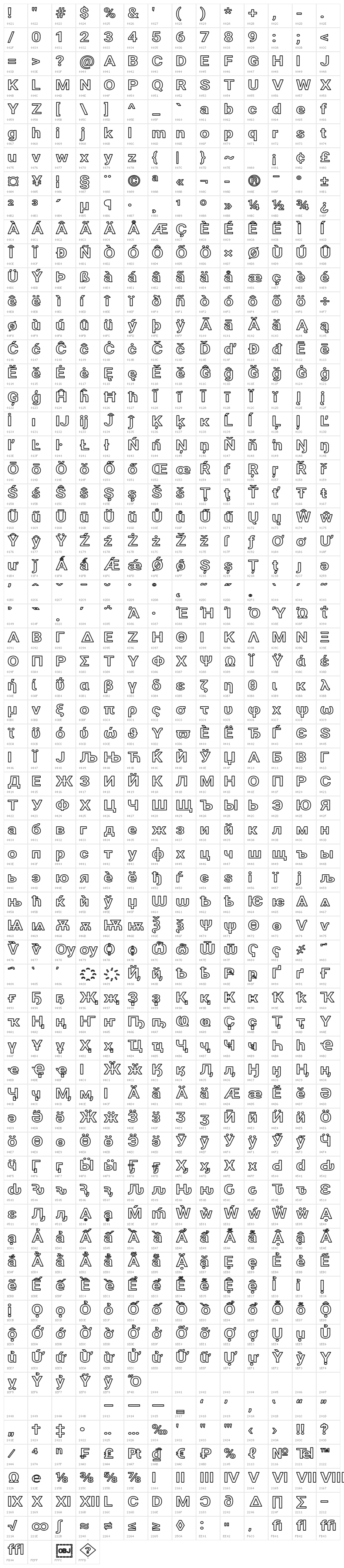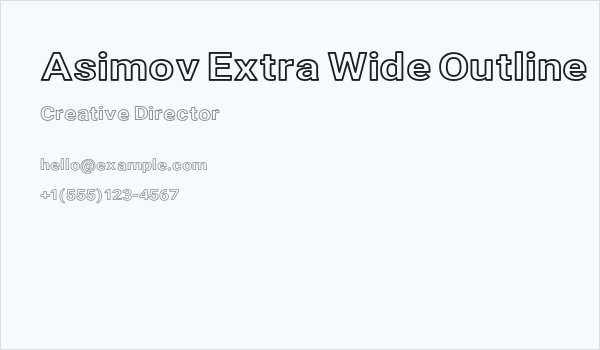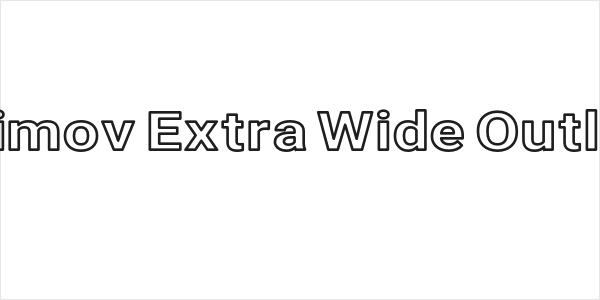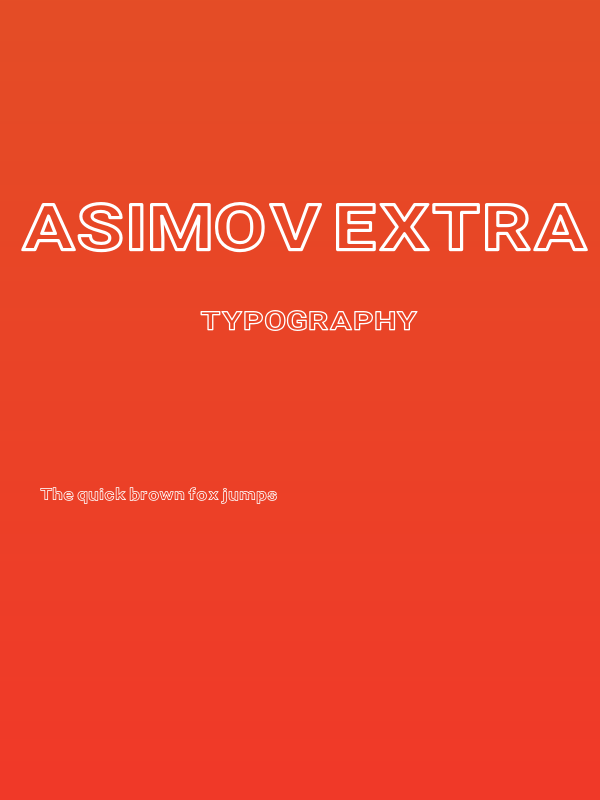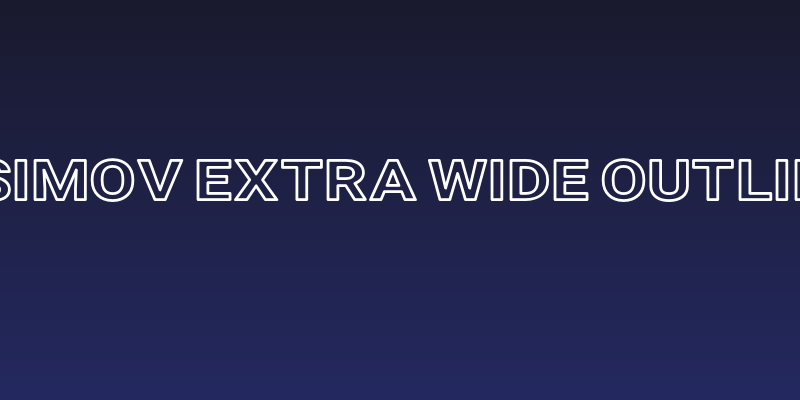
Asimov Extra Wide Outline Font
Asimov Extra Wide Outline Description
This font features a bold, extra-wide outline style that gives it a striking and modern appearance. The uppercase and lowercase letters are designed with a consistent width, creating a uniform look across all characters. The numbers and special characters maintain the same outline style, ensuring a cohesive visual experience. The font's geometric shapes and clean lines make it ideal for projects that require a contemporary and eye-catching design. Its outline nature allows for creative use of color and layering, making it versatile for various design applications.
| Proposed Projects | Ideal for headlines, posters, logos, and any design requiring a bold statement. |